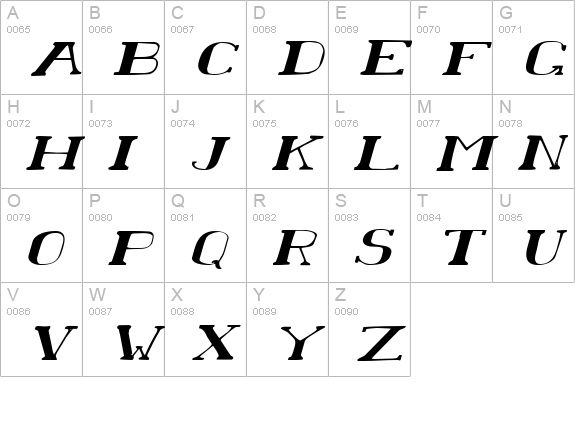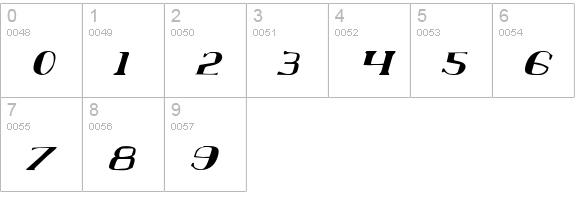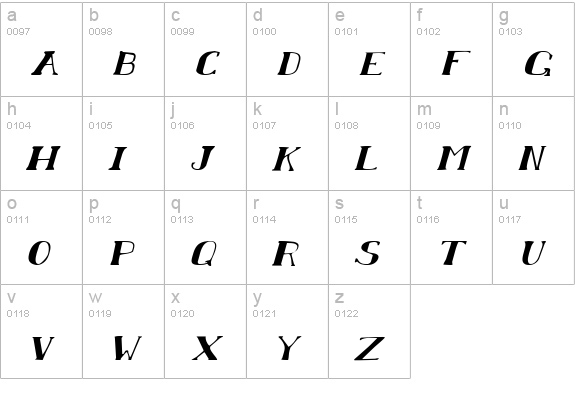
Chardin Doihle Expanded Italic is a distinctive, extended-width, italic variant in the Chardin typeface family \xE2\x80\x94 well suited to design and typography projects.
Chardin Doihle Expanded Italic font is a stylish and sophisticated typeface that exudes elegance and modernity. Its sleek design and elongated letterforms make it perfect for adding a touch of sophistication to any project. The italic style adds a sense of movement and flair, making it ideal for headlines, titles, and other display purposes. What sets Chardin Doihle Expanded Italic font apart is its versatility and readability. Whether used in print or digital media, this font is sure to make a lasting impression. It is well-suited for luxury brands, fashion magazines, and editorial design. Best of all, Chardin Doihle Expanded Italic font is available for free download at FontsMarket.com. So go ahead and elevate your designs with this stunning typeface today!